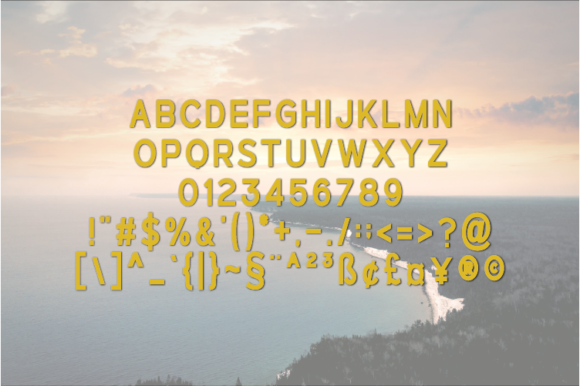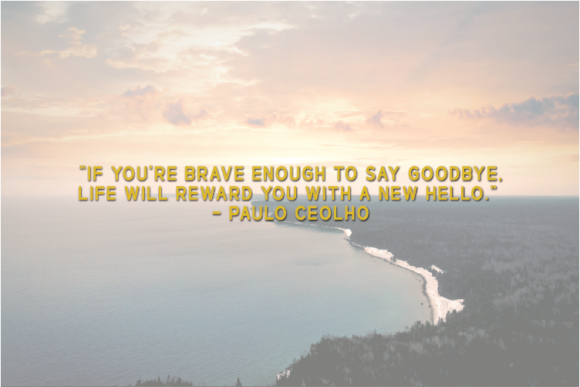
Introduction to Freshe Font
Freshe is a clean and fresh sans serif font.
Key Features of Freshe Font
Why Choose Freshe Font?
Freshe Font offers exceptional quality and versatility, making it a valuable addition to your design toolkit. Whether you’re creating for personal projects or commercial use, Freshe Font delivers professional results.